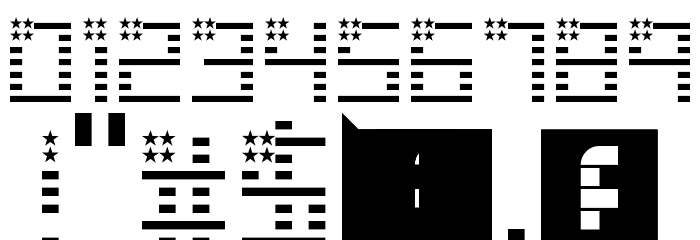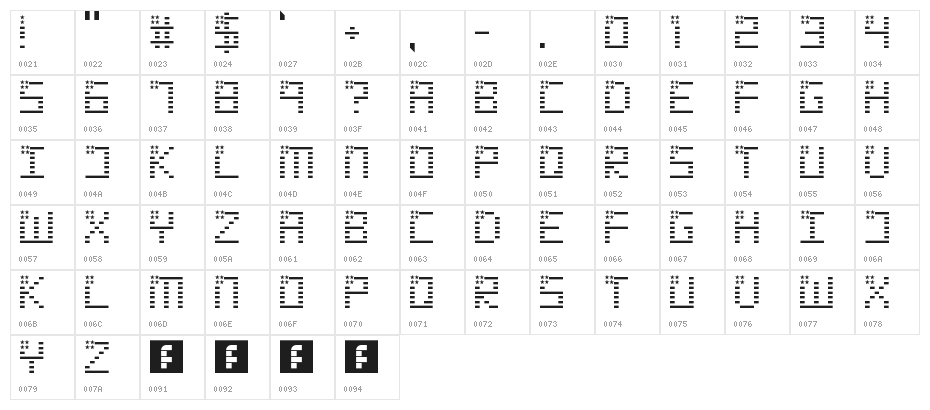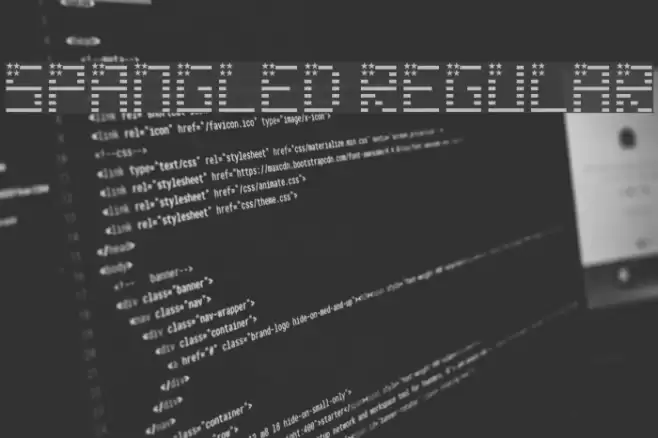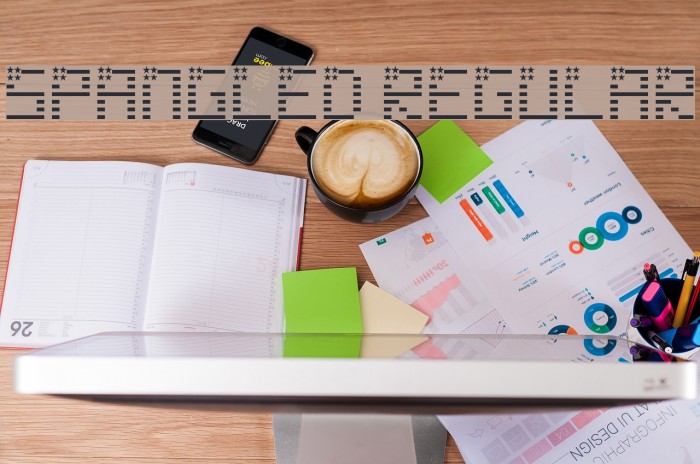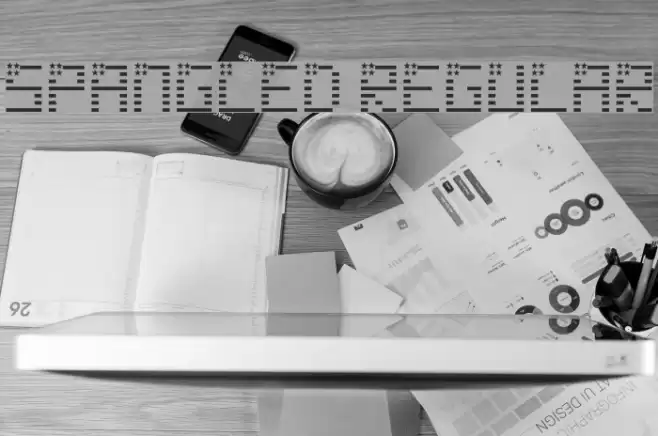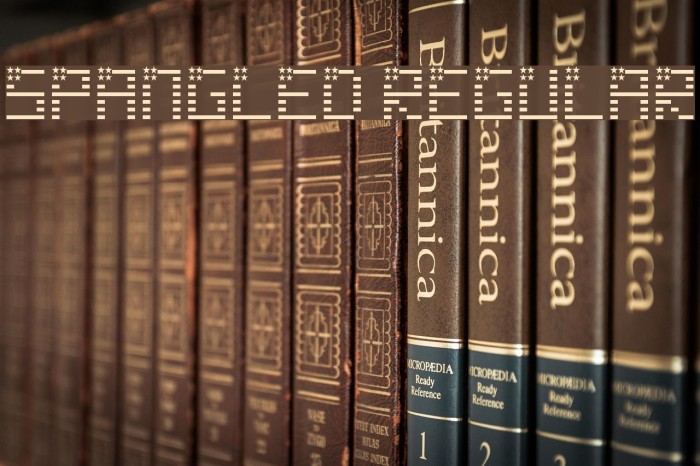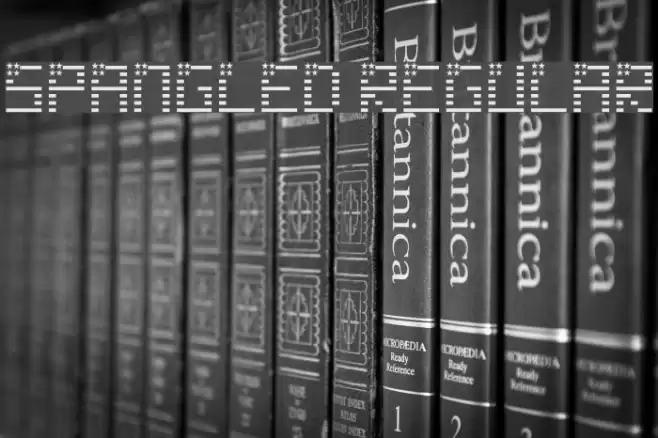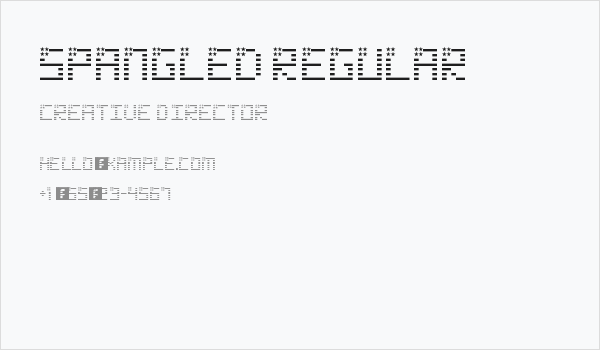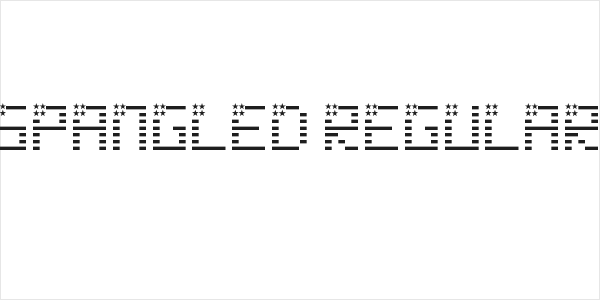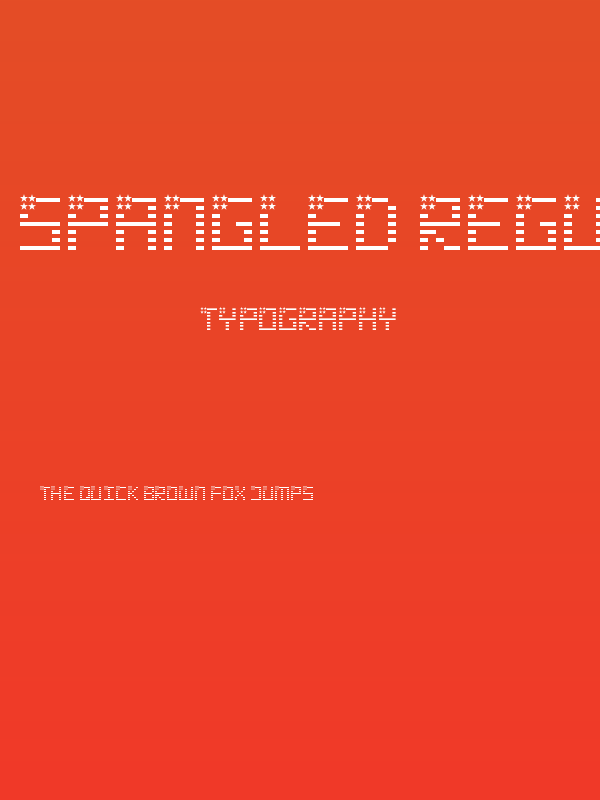
SPANGLED Regular Font
SPANGLED Regular Description
This font features a unique, decorative style that incorporates star-like elements within each character, creating a festive and eye-catching appearance. The characters are constructed with a dotted pattern that gives them a pixelated look, reminiscent of digital or retro designs. This font is ideal for projects that require a playful and celebratory touch, such as party invitations, holiday cards, or themed posters. The uppercase and lowercase letters maintain a consistent style, while the numbers and special characters are equally adorned with the star motif, ensuring a cohesive look across all text elements.
| Proposed Projects | Ideal for party invitations, holiday cards, themed posters, and any project needing a playful, celebratory touch. |